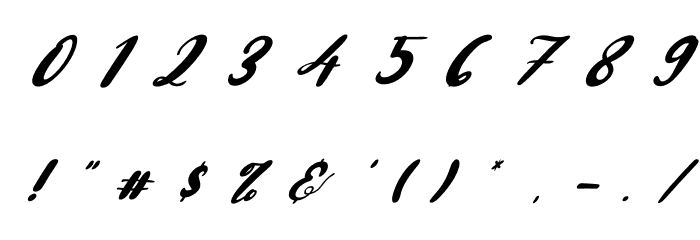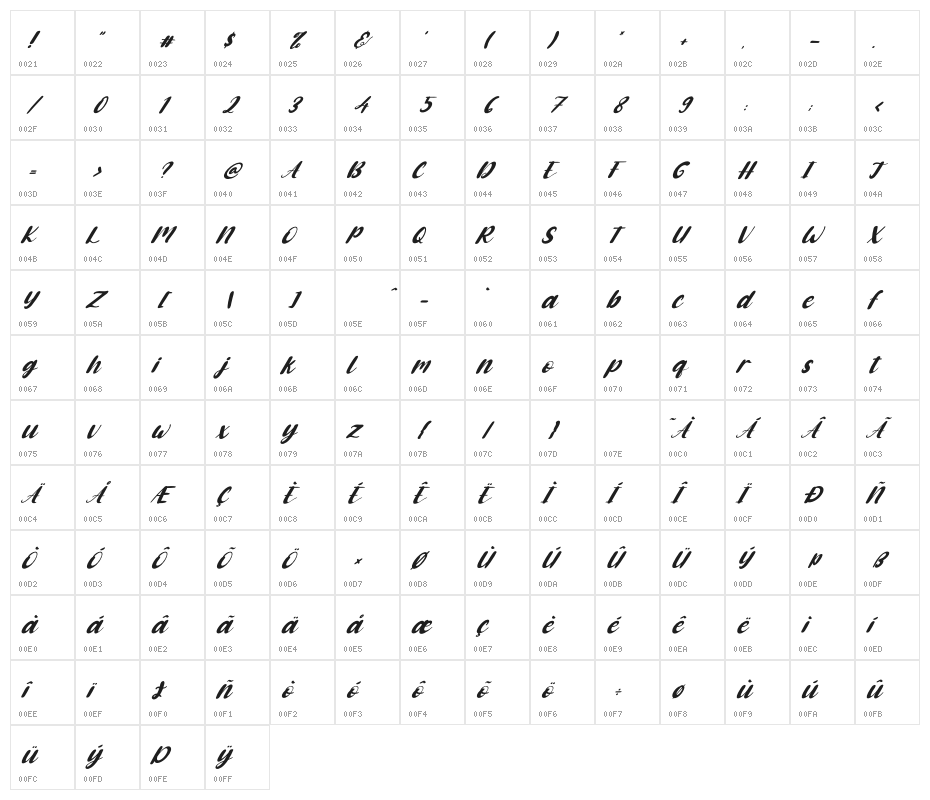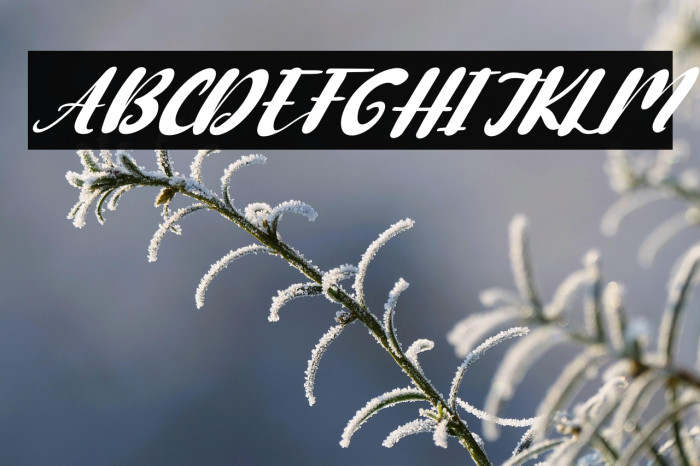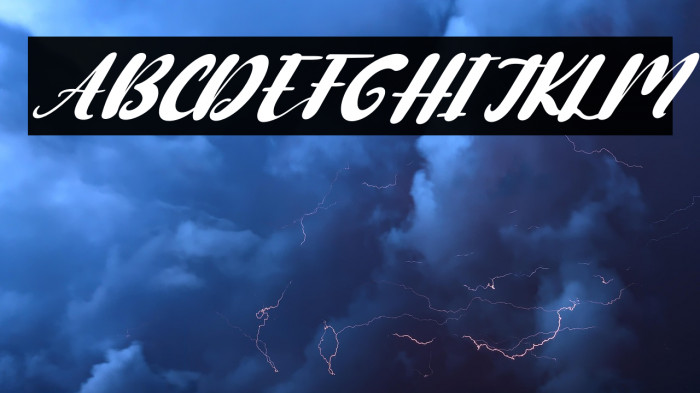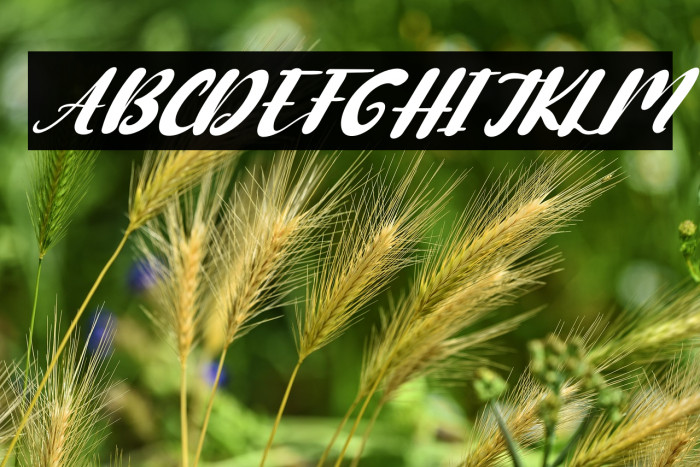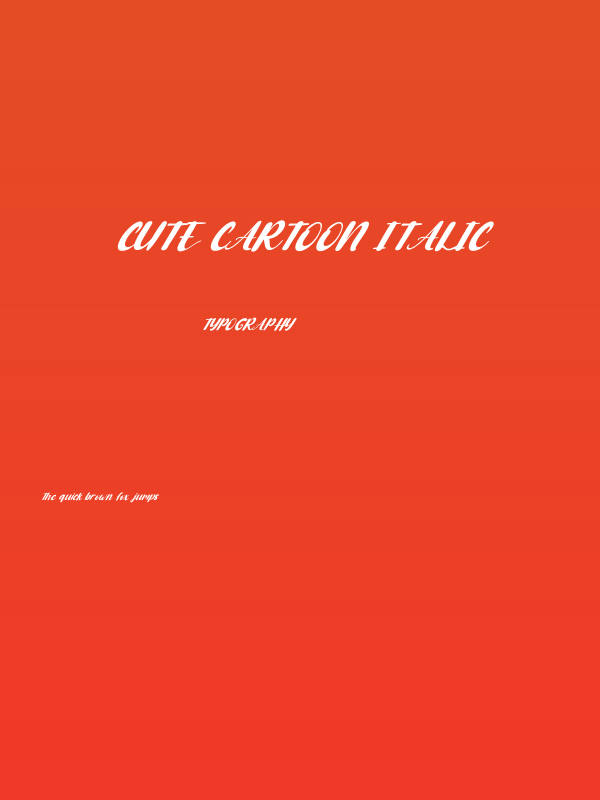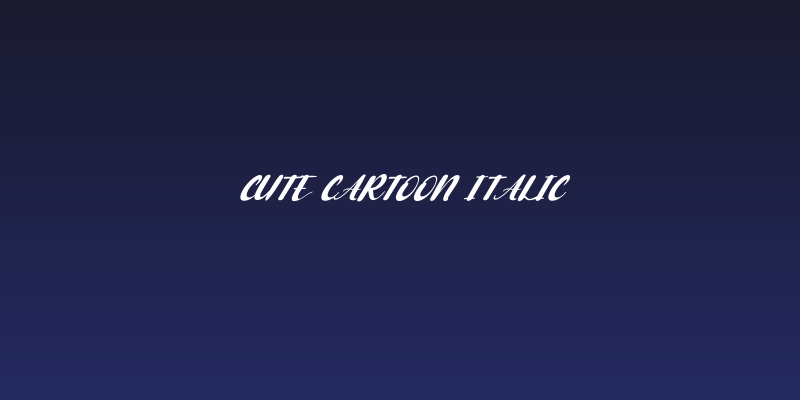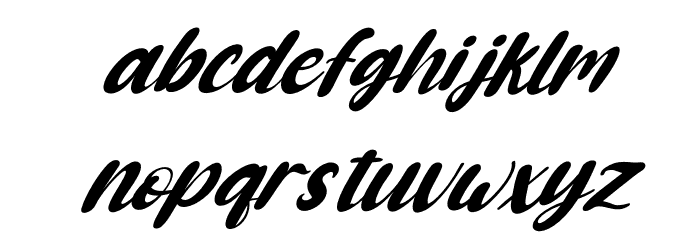
Cute Cartoon Italic Font
This playful and whimsical font features a bold, italicized script style with a cartoonish flair. The letters are characterized by their smooth, flowing curves and exaggerated loops, giving them a lively and dynamic appearance. The uppercase and lowercase letters maintain a consistent style, with the uppercase being slightly more pronounced. Numbers and special characters are designed to match the overall aesthetic, ensuring a cohesive look across all text. The font's bold strokes and slanted orientation make it stand out, while its playful nature adds a touch of fun and creativity.